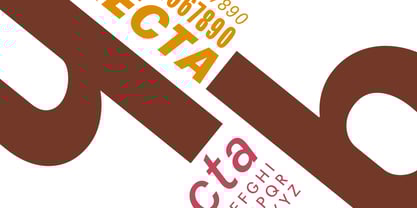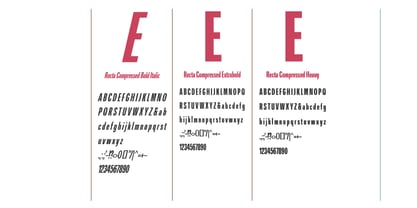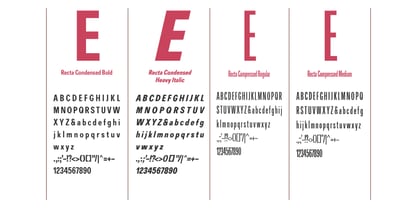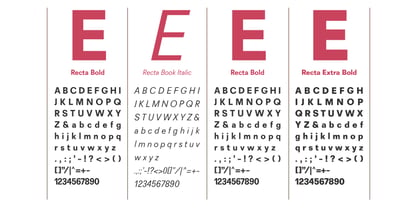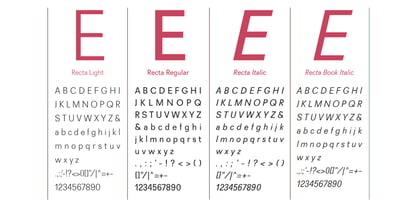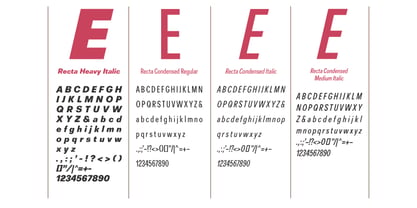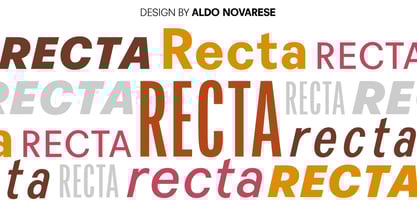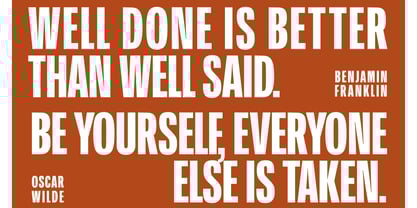
R41 Recta
The R41 Recta Font Family was designed by Alessandro Butti, Aldo Novarese, Cosimo Lorenzo Pancini, Mario De Libero and published by Reber R41. R41 Recta contains 38 styles and family package options.
Recta, designed by Aldo Novarese in 1959 for Nebiolo, is a distinguished typeface that played a pivotal role in the European sans serif movement of the mid-20th century. Released shortly after the Swiss Neue Haas Grotesk and the French Univers, Recta quickly rose to prominence, earning the nickname the Italian Helvetica. Its unique characteristics feature a soft line with a humanistic touch, paired with the clear shapes typical of the grotesk genre. Although initially envisioned in various weights and styles, the high costs associated with traditional printing limited their realization, making Recta a celebrated and distinctive typeface. Perfect for branding, editorial design, and web applications, Recta seamlessly blends elegance with functionality, ensuring it remains a versatile choice for contemporary typography.